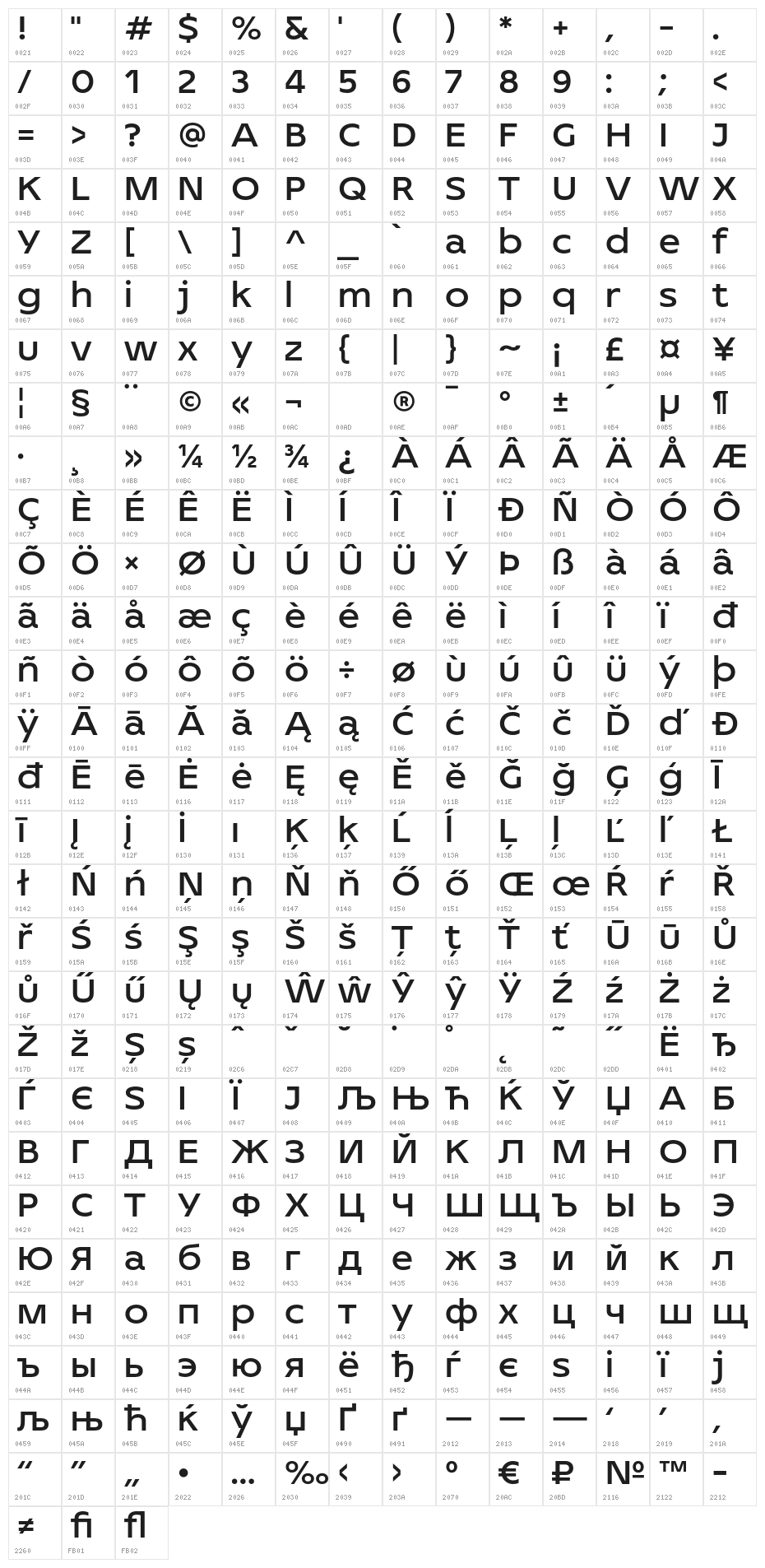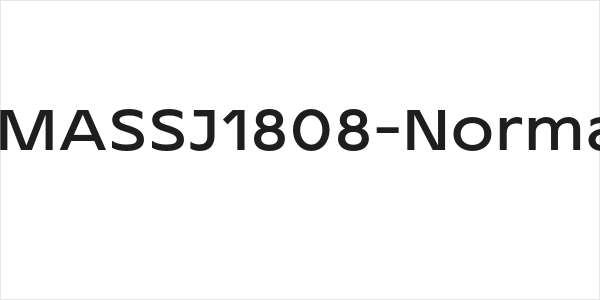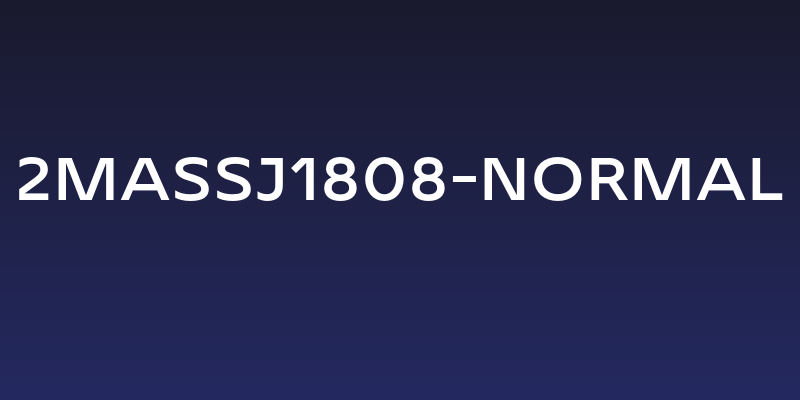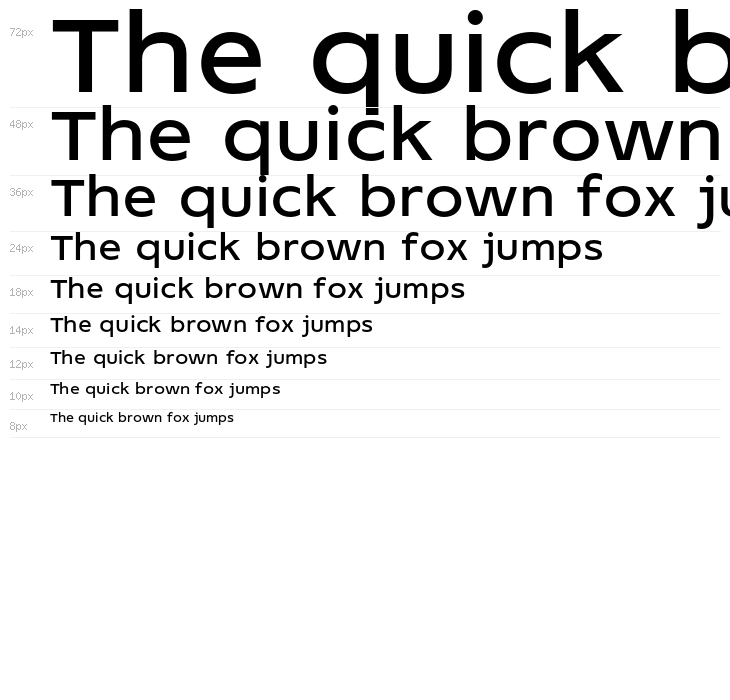
2MASSJ1808-Normal Font
2MASSJ1808-Normal Description
This typeface features a clean and modern sans-serif design, characterized by its geometric shapes and uniform stroke widths. The uppercase letters are bold and assertive, while the lowercase letters maintain a consistent and harmonious appearance. The numerals are clear and easily distinguishable, making them suitable for a variety of applications. Special characters are well-integrated, maintaining the overall aesthetic of the font. Its simplicity and clarity make it highly legible, even at smaller sizes, while its boldness ensures it stands out in larger formats.
Use CaseHeadlines, Body text, Logos
Proposed ProjectsIdeal for branding, advertising, web design, and editorial projects where clarity and modernity are essential.